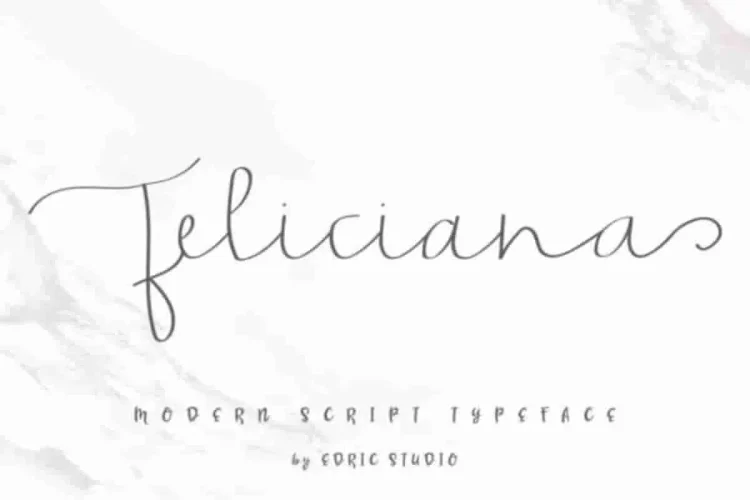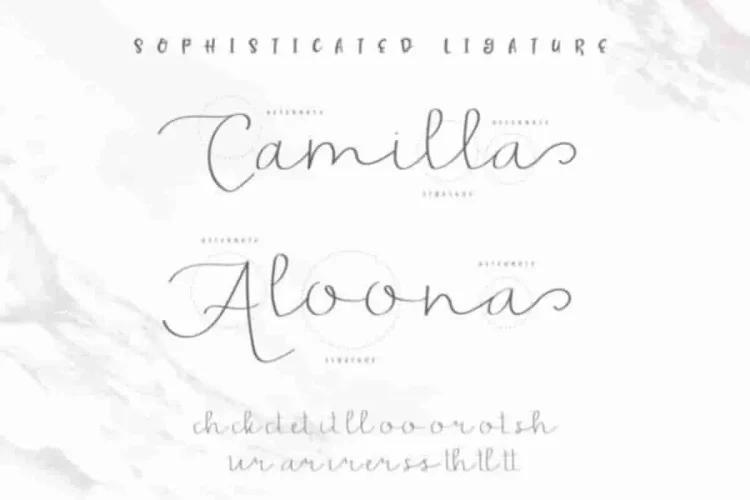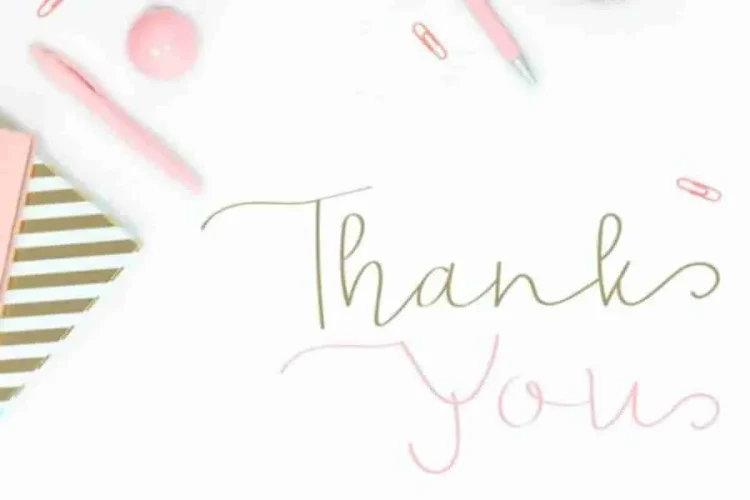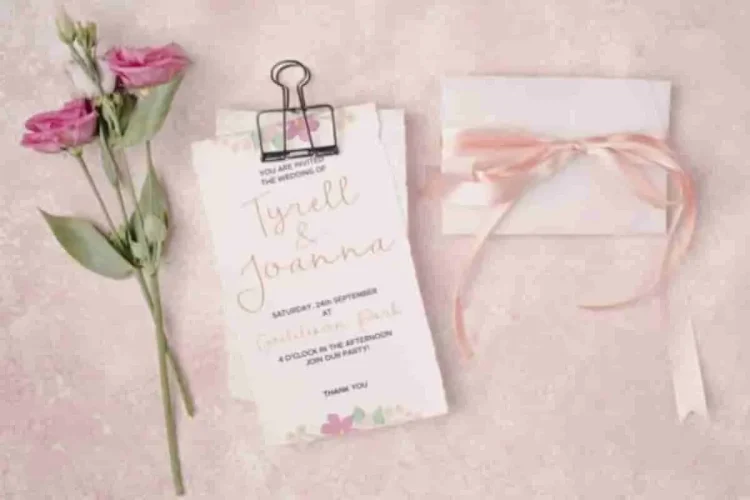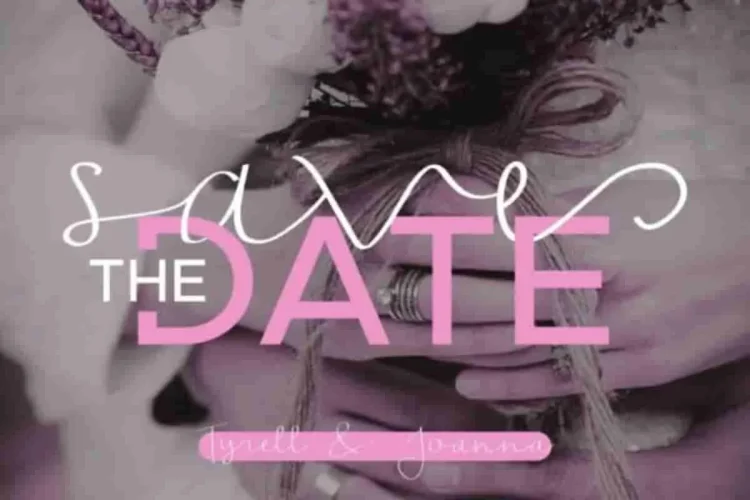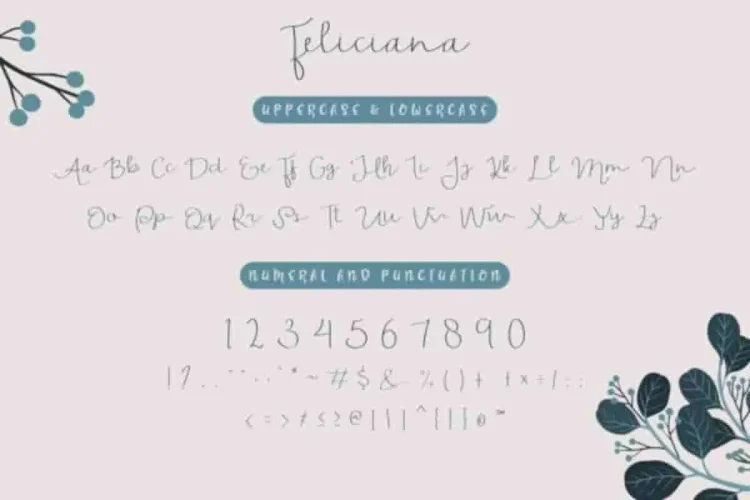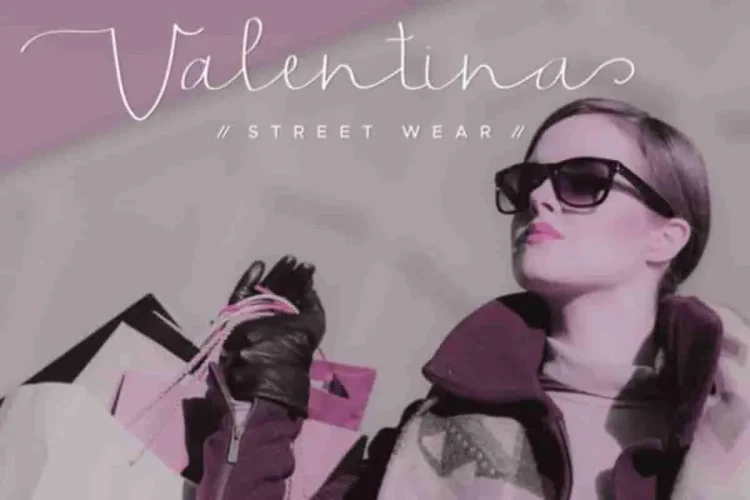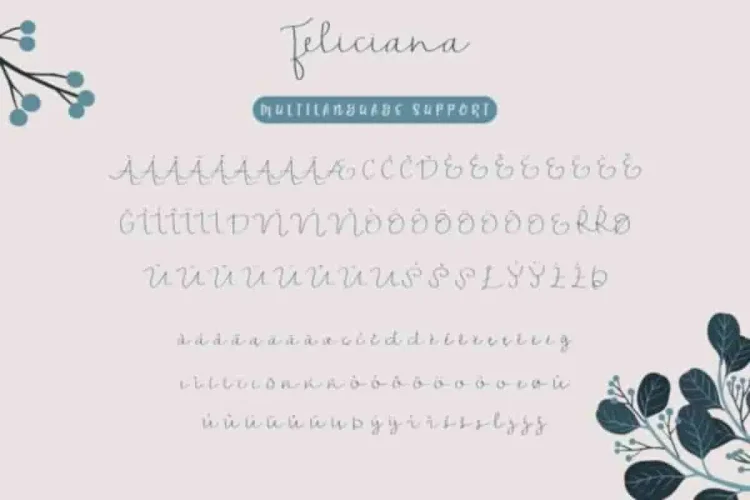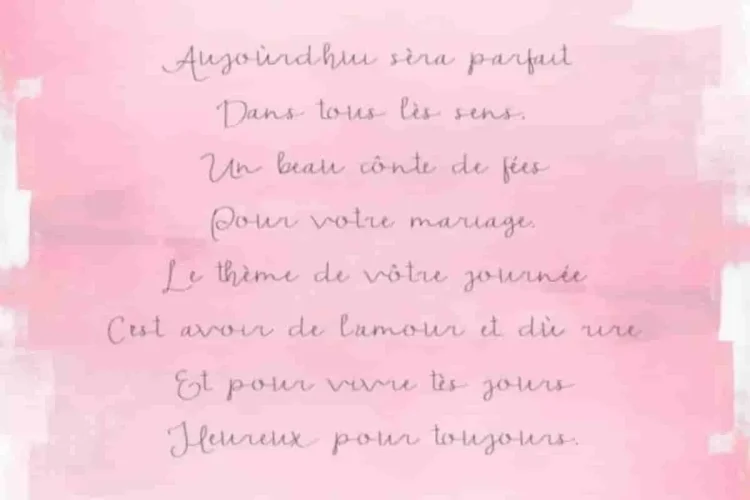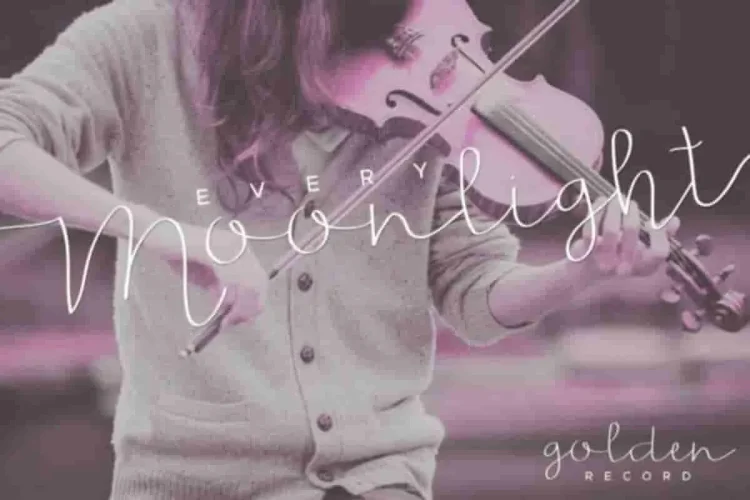
Feliciana Handwritten Font
It’s Edric Studio again here. Please welcome! our latest font family : Feliciana Handwritten Font
This is a handwritten script font. It features a rich set of alternate glyphs. This font will be great for branding, logo, stationery, business card, signage, flyer, brochure etc. There are many industries that is suitable for this font : real estate, music, law firm, make up et.
Feliciana Font has many alternate glyphs so you can explore further more. It will suits many projects, the limit is only our creativity.
The Feliciana Handwritten Font is also support many international languages.